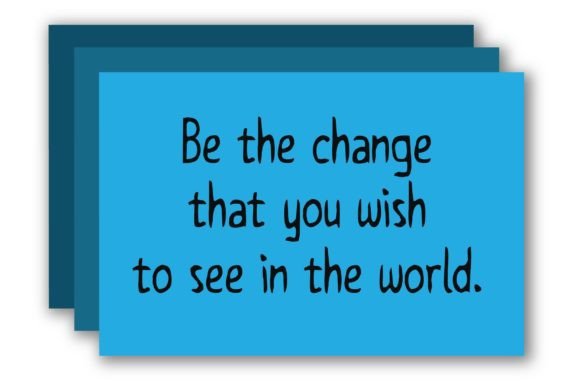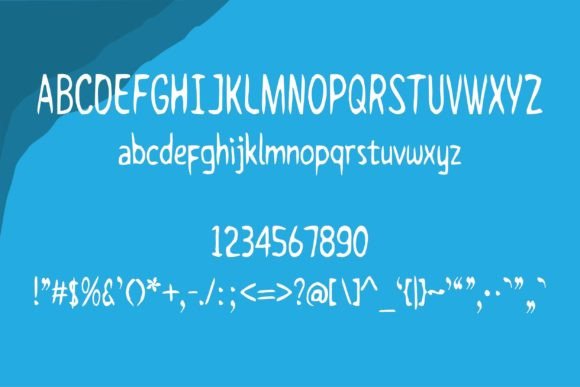
Unleash Your Creativity with Blue Canis Font: The Ultimate Scream Font
Are you a designer, craftsperson, or simply a creative individual looking for a font that will make your project stand out from the rest? Look no further than the Blue Canis font, an attractive and cool scream font that’s sure to add a strong visual effect to your creation. In this article, we’ll dive into the world of Blue Canis, exploring its features, benefits, and uses, as well as provide tips on how to make the most of this amazing font.
What is Blue Canis Font?
Blue Canis is a unique and stylish scream font that’s perfect for designers and crafters who want to add a touch of edginess to their work. This font is characterized by its bold, eye-catching letters and strong visual effect, making it ideal for projects that require a bit of drama and flair. Whether you’re working on a logo, poster, or social media graphic, Blue Canis is sure to make your creation more eye-catching than others.
Key Features of Blue Canis Font
- Simple yet Impactful Design: Blue Canis has a simple yet powerful design that makes it easy to read and understand, while also grabbing the attention of your audience.
- Strong Visual Effect: The font’s bold and edgy design creates a strong visual effect that’s sure to make your project stand out from the rest.
- Versatile: Blue Canis is a versatile font that can be used for a wide range of projects, from logos and posters to social media graphics and more.
Benefits of Using Blue Canis Font
So, why should you choose Blue Canis font for your next project? Here are just a few benefits of using this amazing font:
- Adds Visual Interest: Blue Canis adds a touch of visual interest to your project, making it more engaging and attention-grabbing.
- Enhances Creativity: This font’s unique design and strong visual effect can help stimulate your creativity and inspire new ideas.
- Perfect for Bold Projects: Blue Canis is perfect for projects that require a bold and edgy design, such as music posters, event flyers, and more.
- Great for Logos and Branding: This font is also great for logos and branding, as it can help create a memorable and recognizable identity for your business or brand.
- Use for Headings and Titles: Blue Canis is perfect for headings and titles, as it adds a touch of drama and flair to your text.
In conclusion, Blue Canis font is an attractive and cool scream font that’s perfect for designers and crafters looking to add a touch of edginess to their work. With its simple yet impactful design, strong visual effect, and versatility, this font is sure to make your creation more eye-catching than others. Whether you’re working on a logo, poster, or social media graphic, Blue Canis is a great choice for any project that requires a bold and attention-grabbing design.